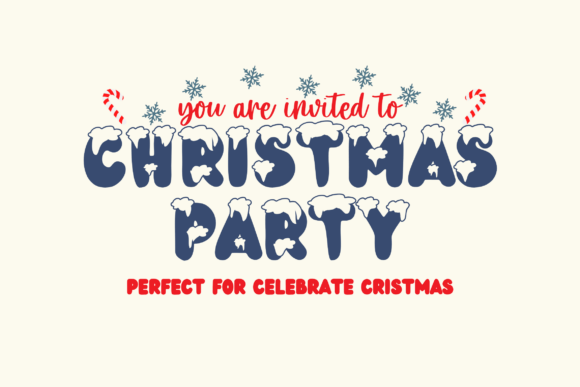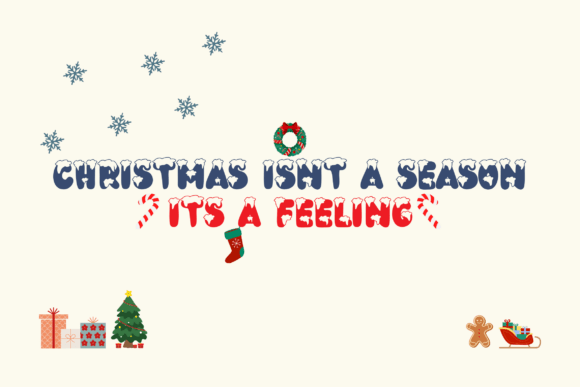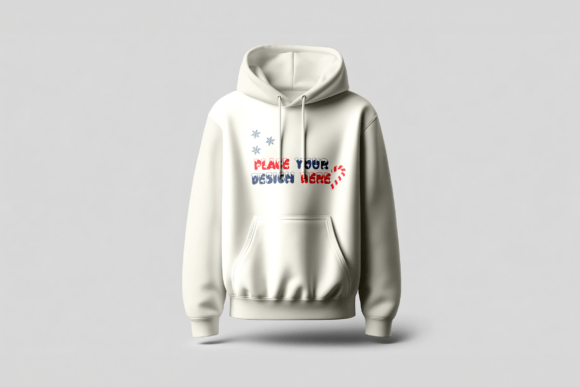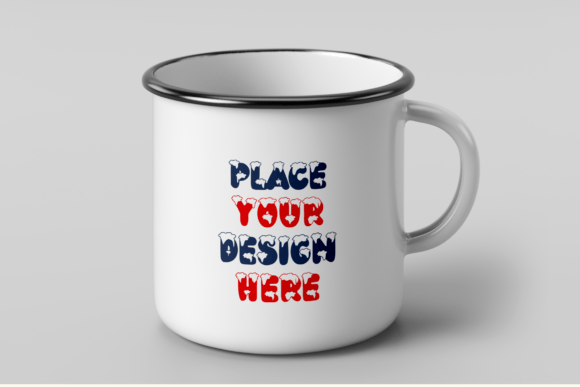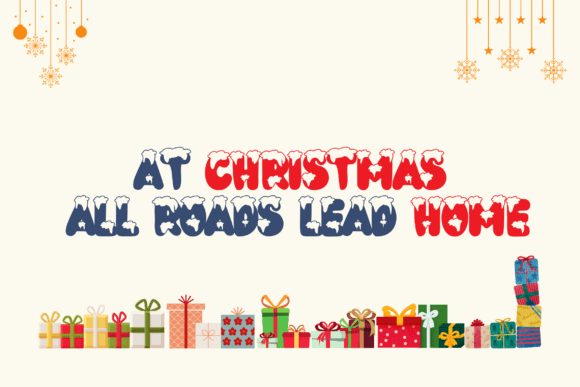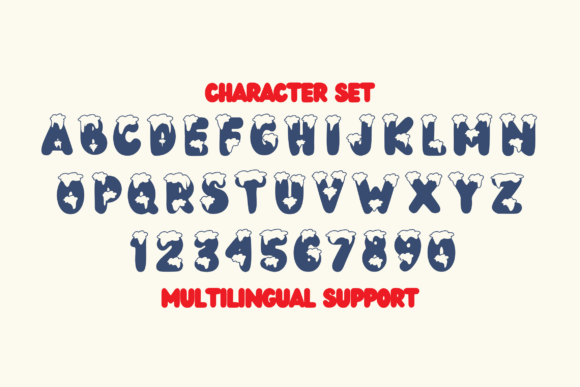
Bubble Christmas Font: The Ultimate Holiday Design Companion
As the festive season approaches, designers and crafters are on the lookout for the perfect typography to add a touch of magic to their holiday projects. Look no further than the Bubble Christmas Font, a delightful typeface that embodies the joy and wonder of Christmas. With its playfully rounded letters and radiant, festive charm, this enchanting font is sure to become your go-to choice for all your holiday design needs.
A Festive Font for Every Project
The Bubble Christmas Font is incredibly versatile, making it an excellent addition to a wide range of holiday-inspired projects. Whether you’re designing Christmas cards, personalizing gift tags, creating holiday invitations, or sprucing up decorations, this charming font is sure to bring a smile to everyone’s face. Its whimsical touch and cozy undertones harmoniously blend to create a truly festive atmosphere that’s perfect for the holiday season.
What Makes Bubble Christmas Font So Special?
So, what sets the Bubble Christmas Font apart from other holiday typefaces? Here are just a few reasons why designers and crafters are falling in love with this delightful font:
- Playfully Rounded Letters: The Bubble Christmas Font features playfully rounded letters that are sure to add a touch of whimsy to your designs. Its fun and carefree vibe makes it perfect for creating festive and fun holiday projects.
- Radiant, Festive Charm: This enchanting font exudes a radiant, festive charm that’s sure to get you in the holiday spirit. Its cozy undertones and warm feel make it perfect for creating designs that are both festive and inviting.
- Versatility: The Bubble Christmas Font is incredibly versatile, making it suitable for a wide range of holiday projects. Whether you’re designing for digital or print, this font is sure to shine.
Using Bubble Christmas Font in Your Designs
Using the Bubble Christmas Font in your designs is incredibly easy. Here are a few tips to get you started:
- Pair it with Other Festive Fonts: Combine the Bubble Christmas Font with other festive fonts to create a unique and eye-catching design.
- Add Festive Colors: Use festive colors like red, green, and gold to bring your design to life and match the Bubble Christmas Font’s playful vibe.
- Get Creative with Decorations: Add decorations like holly, snowflakes, or Christmas trees to your design to create a truly festive atmosphere.
The Bubble Christmas Font is perfect for designers and crafters who want to add a touch of magic to their holiday projects. Whether you’re creating:
- Christmas Cards: Use the Bubble Christmas Font to create personalized and festive Christmas cards that are sure to delight your loved ones.
- Gift Tags: Add a touch of whimsy to your gift tags with the Bubble Christmas Font, making them perfect for presents, stocking stuffers, and more.
- Holiday Invitations: Create festive and fun holiday invitations with the Bubble Christmas Font, perfect for Christmas parties, holiday gatherings, and more.
- Decorations: Use the Bubble Christmas Font to create festive decorations like banners, garlands, and more, adding a touch of magic to your holiday decor.
The Bubble Christmas Font is a must-have for designers and crafters who want to add a touch of magic to their holiday projects. With its playfully rounded letters, radiant, festive charm, and cozy undertones, this enchanting font is sure to become your go-to choice for all your holiday design needs. So why wait? Immerse yourself in the spirit of the festive season with the Bubble Christmas Font and make your holiday designs shine!